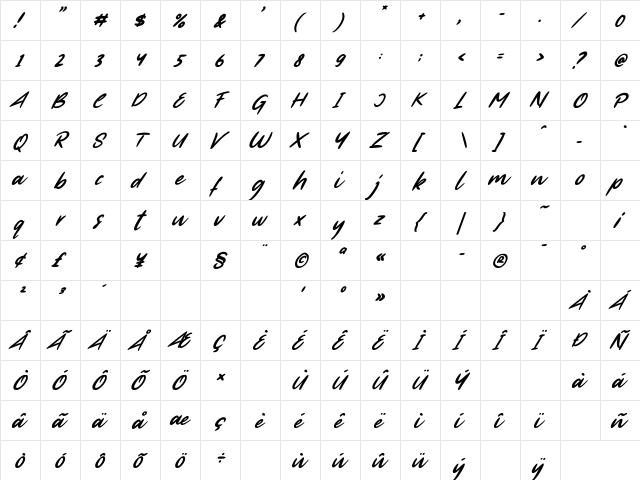
First Time Italic Regular
| Foundry | Kong Font |
| Designer | Kong Font |
Design Context for First Time Italic Typeface
First Time Italic is a composed and adaptable typeface that performs quietly and consistently across a wide range of design contexts. The slanted form adds forward momentum and visual energy.